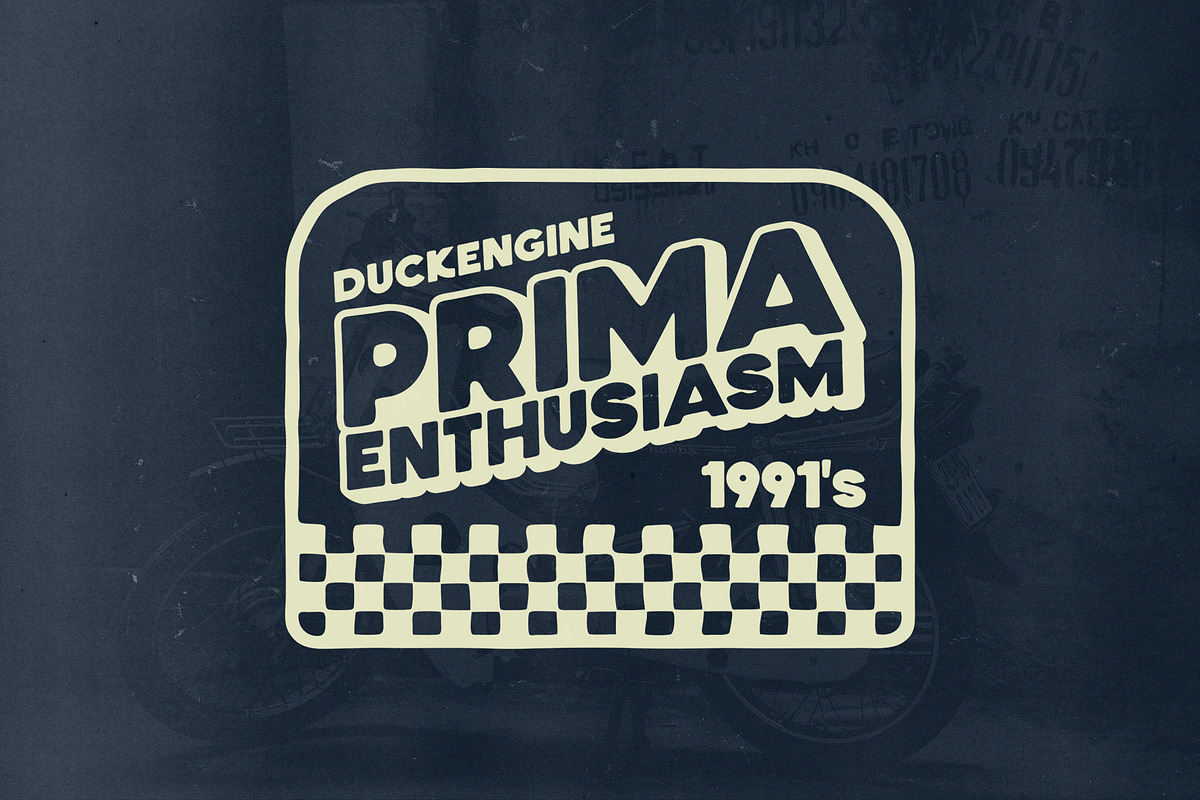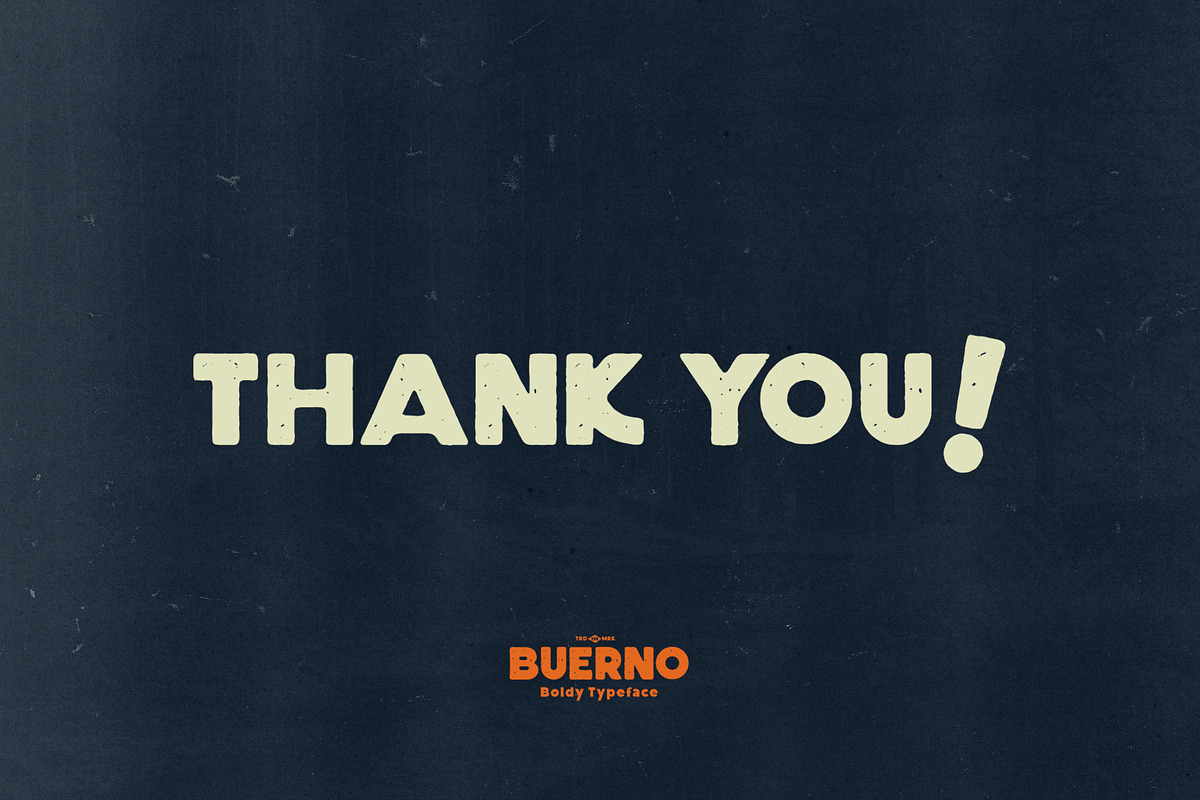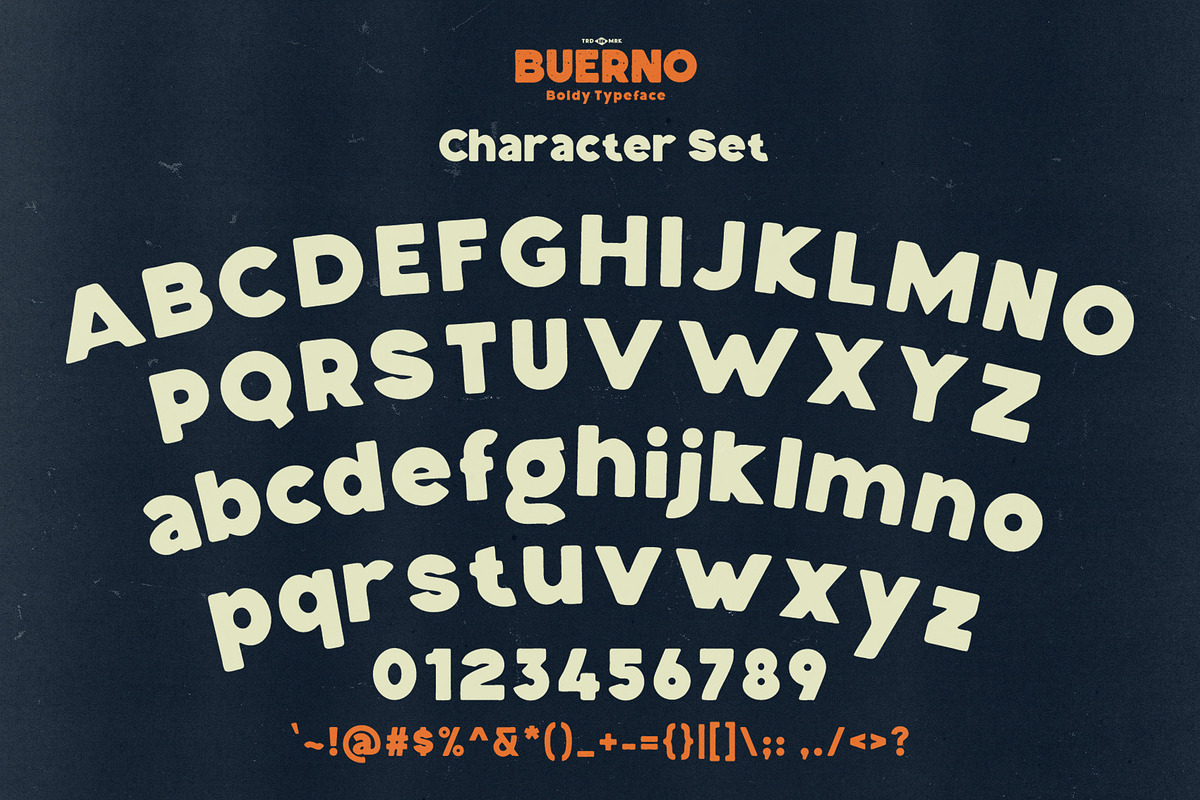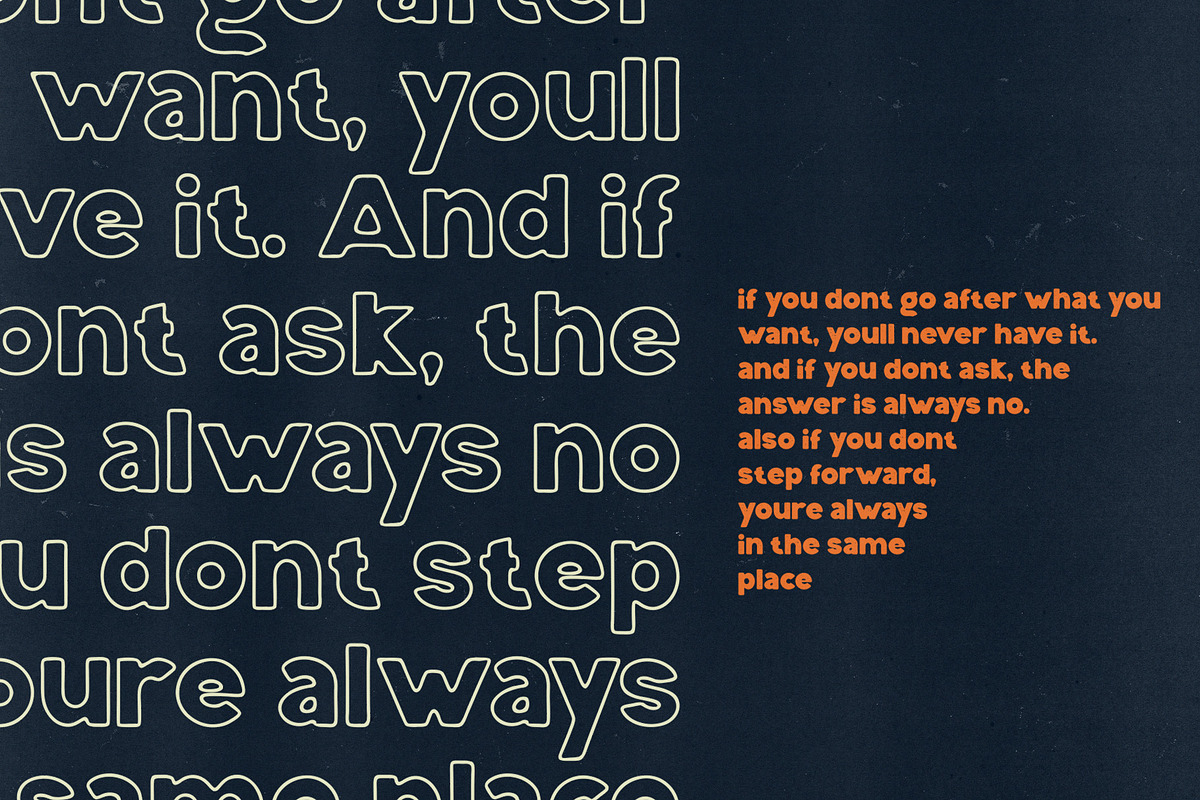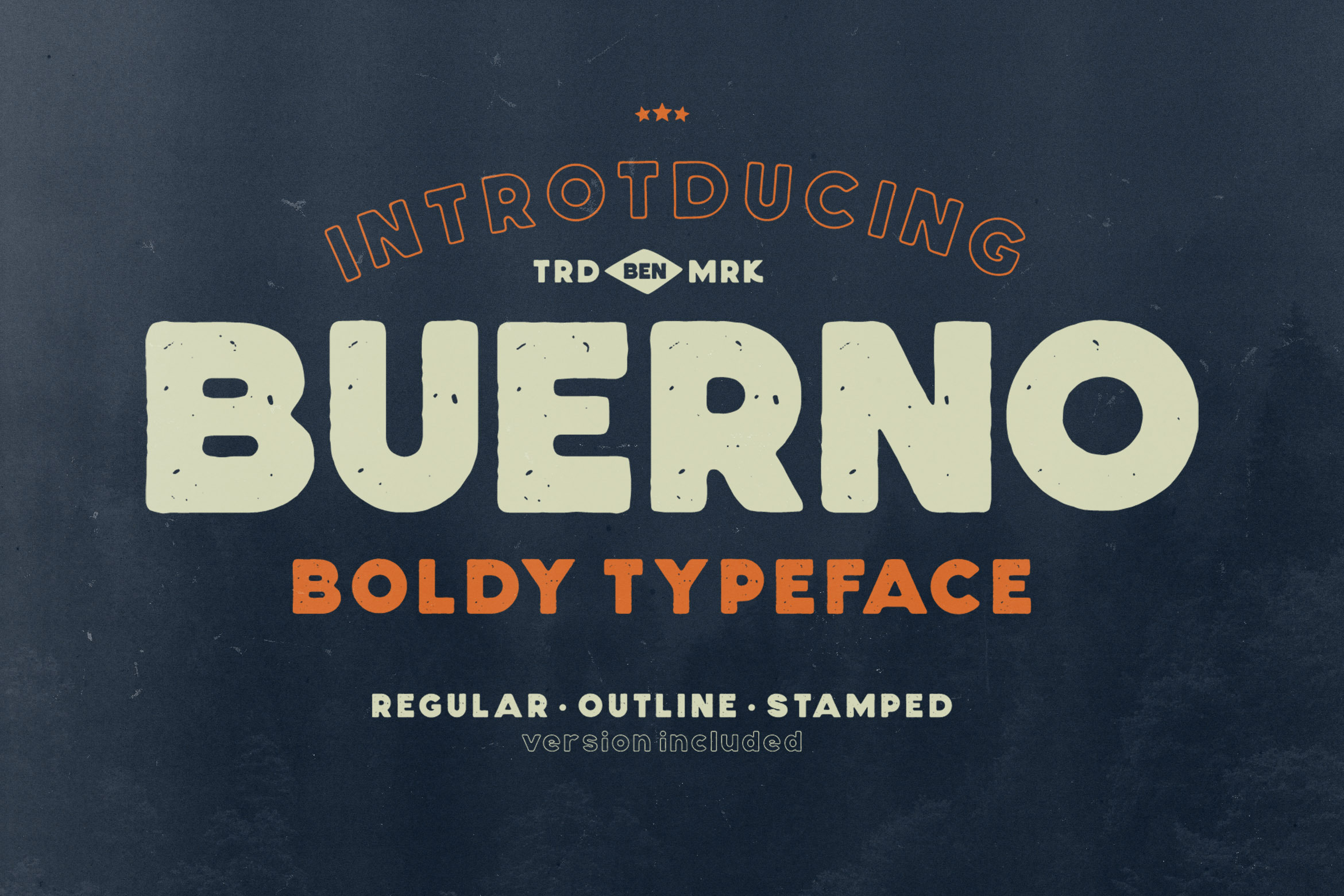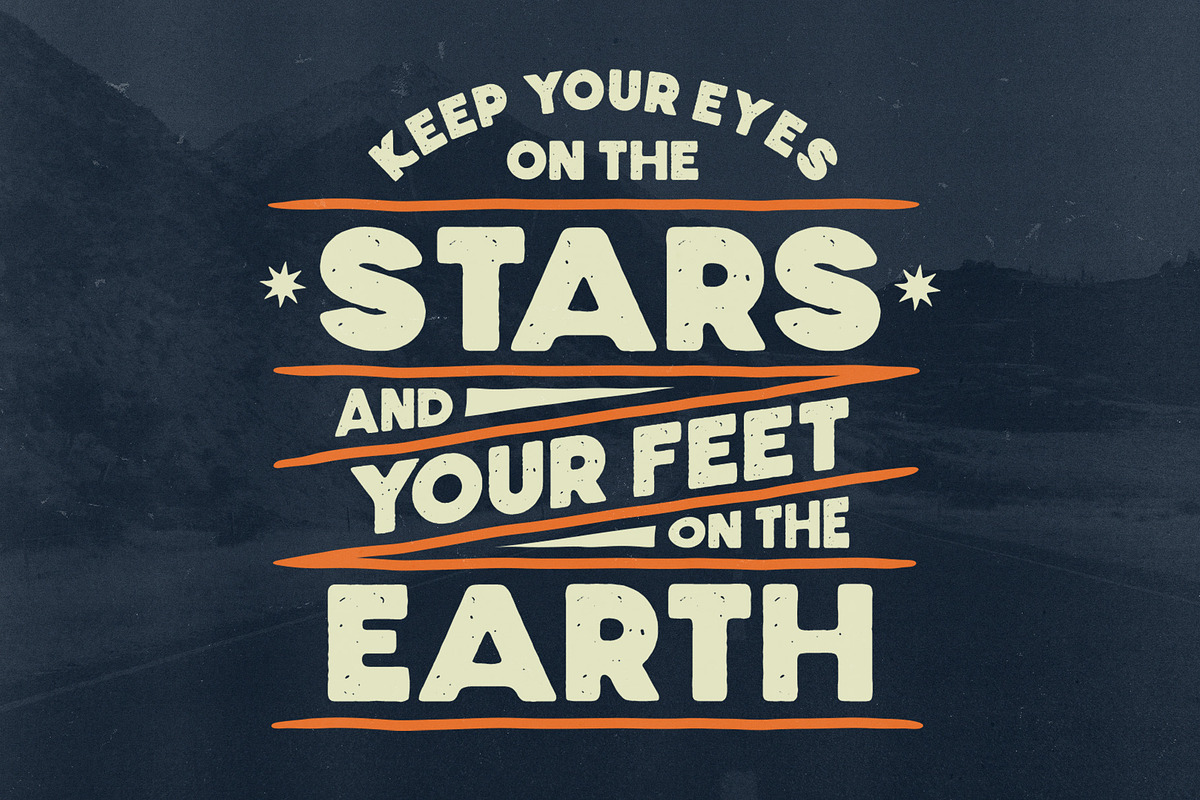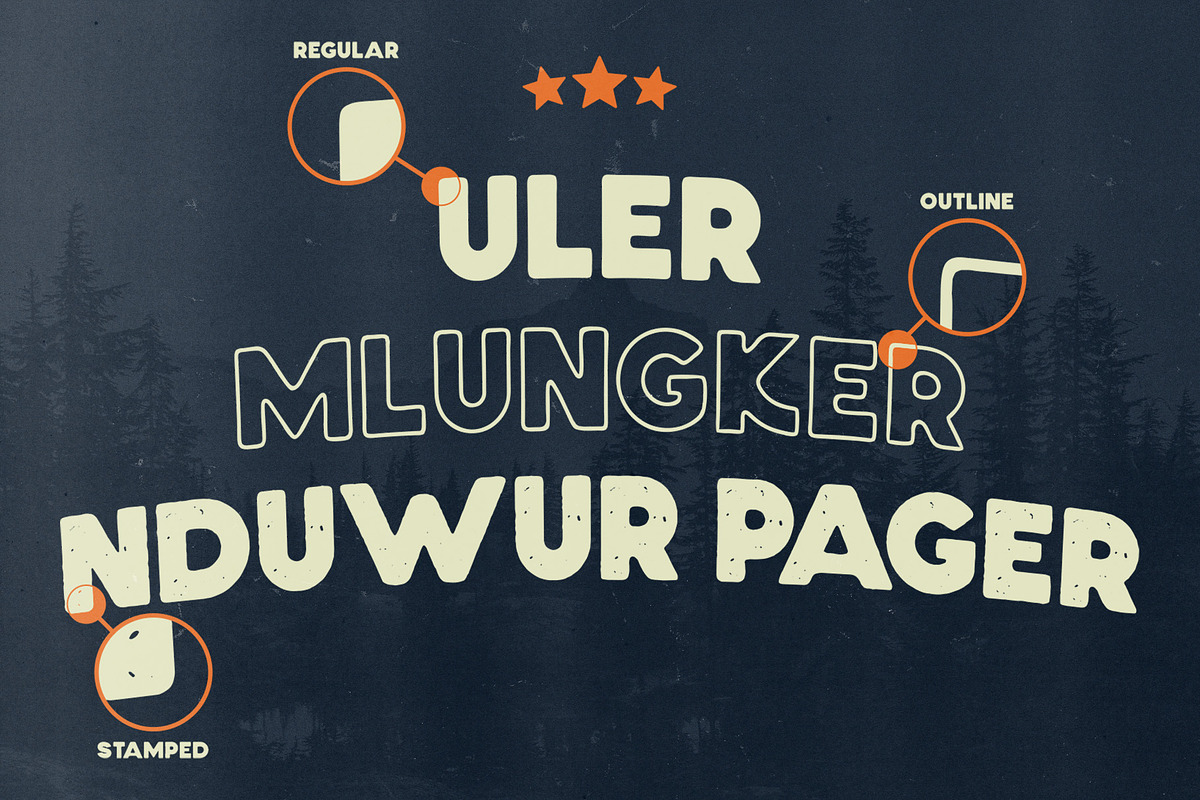
Buerno- Boldy Typeface
Buerno - Boldy Typeface Comes with many styles - great for your new logo or branding project.
Great for retro or vintage style branding projects Thanks.